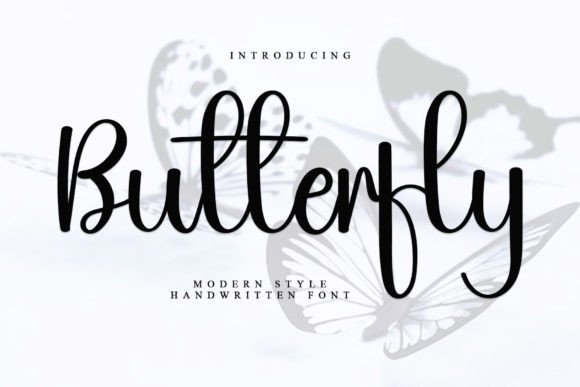
The Elegant Butterfly Font: A Designer’s New Best Friend
I’ll never forget the time I was working on a wedding invitation project, and my client asked for a font that was ” elegant, modern, and had a handwritten touch.” I scoured the internet, tried out dozens of fonts, but nothing seemed quite right. That was until I stumbled upon the Butterfly Font. ✨ It was love at first sight! With its stylish and elegant writing style, it perfectly captured the essence of a beautiful life. In this article, I’ll share my experience with the Butterfly Font, its features, and how to make the most of it in your designs.
- ✨ Elegant and modern design that adds a touch of sophistication to any project
- ✅ Perfect for wedding invitations, thank you cards, quotes, and greeting cards
- 💕 Beautiful handwritten style that gives a personal touch to logos, business cards, and more
- 🎉 Highly versatile and can be used for a wide range of design projects
While the Butterfly Font is amazing, there are a few things to keep in mind: 🤔
- ⚠️ Some users may find the font a bit too delicate for certain design projects
- ⚠️ May not be suitable for body text due to its elegant, cursive nature
The Butterfly Font was designed by a talented typographer who wanted to create a font that captured the essence of elegance and modernity. Inspired by the delicate wings of a butterfly, the font’s designer aimed to create a beautiful, handwritten style that would add a touch of sophistication to any design project.
Q: Is the Butterfly Font suitable for body text?
A: While the Butterfly Font is beautiful, it’s not recommended for body text due to its elegant, cursive nature. It’s best used for headings, titles, and short paragraphs.